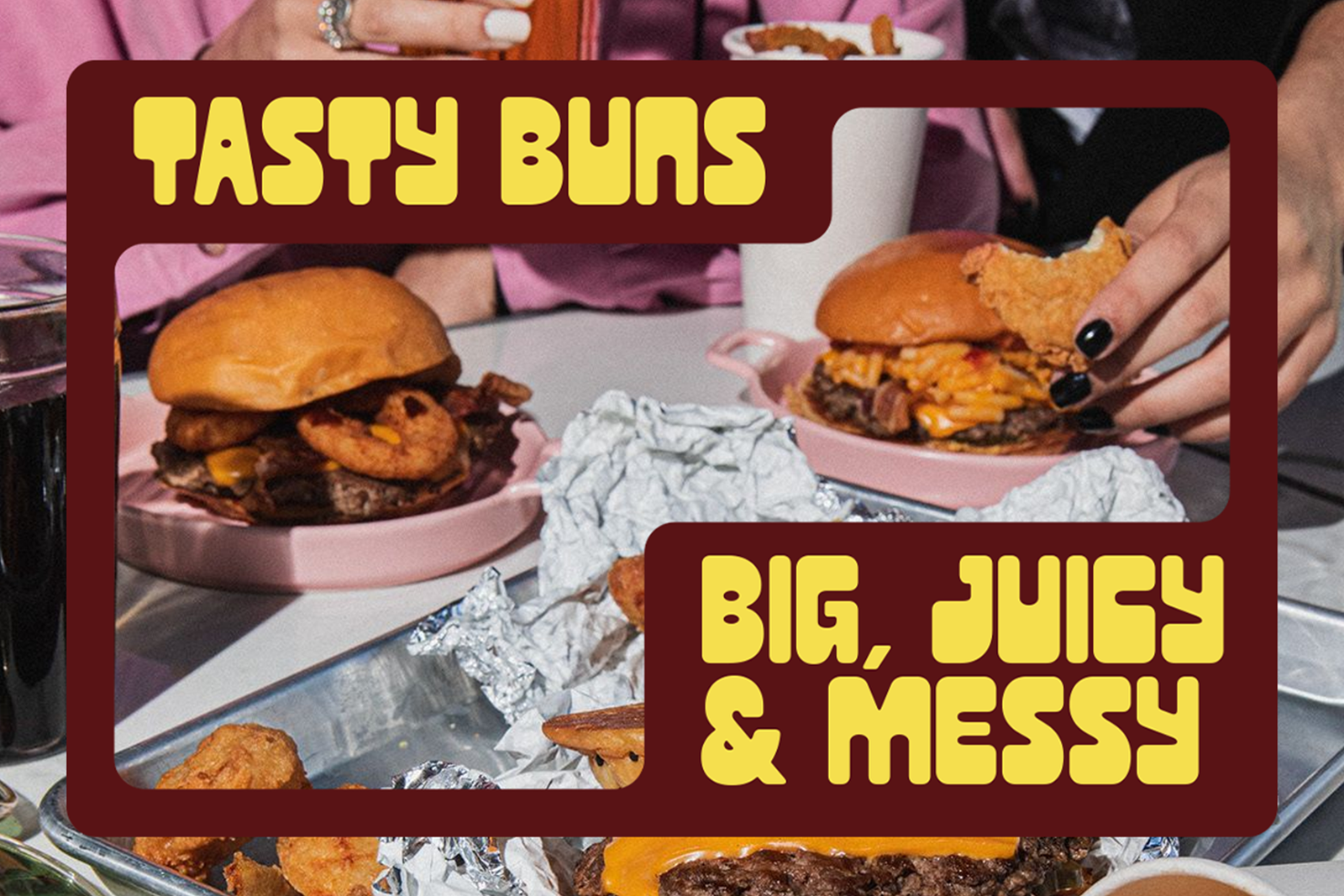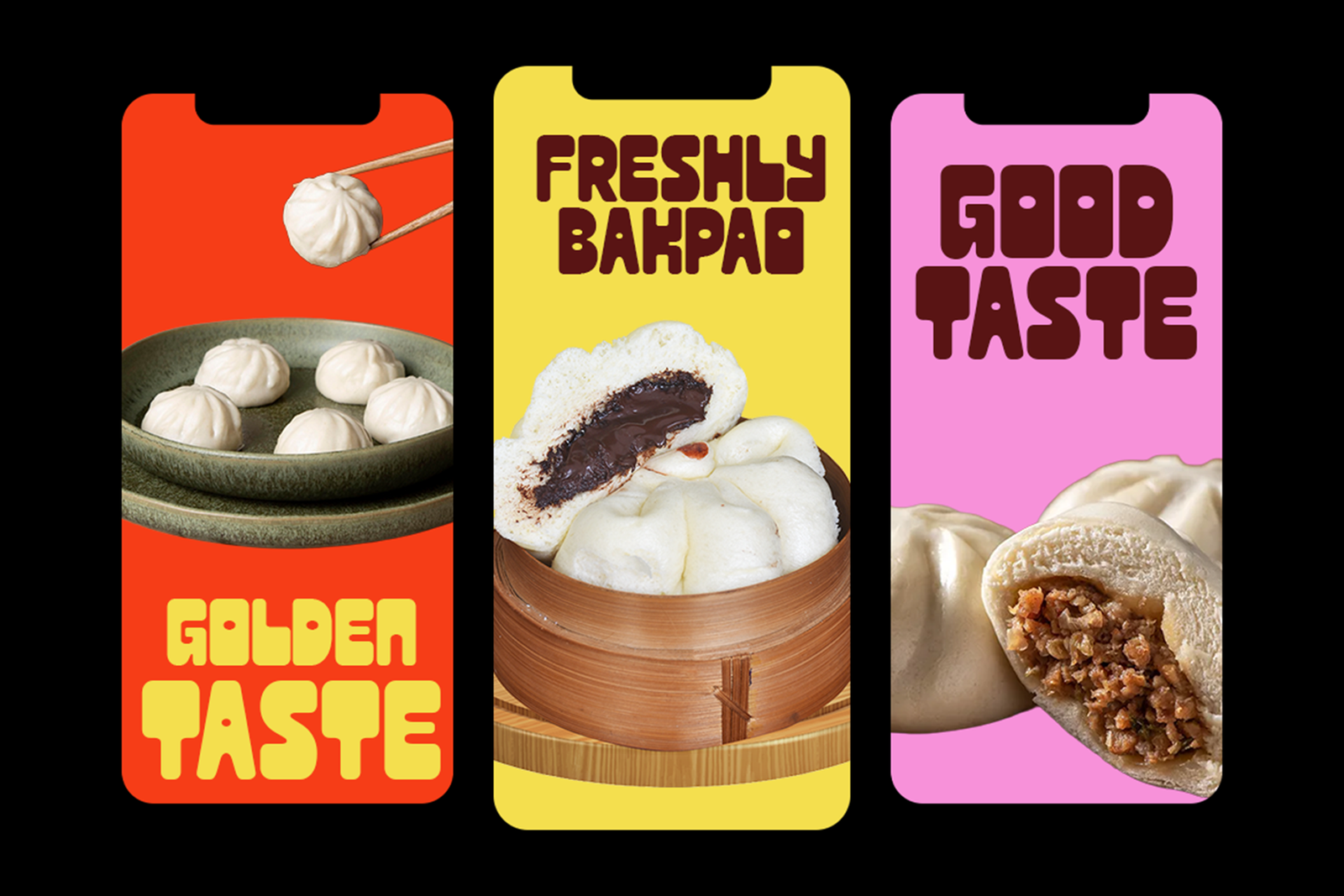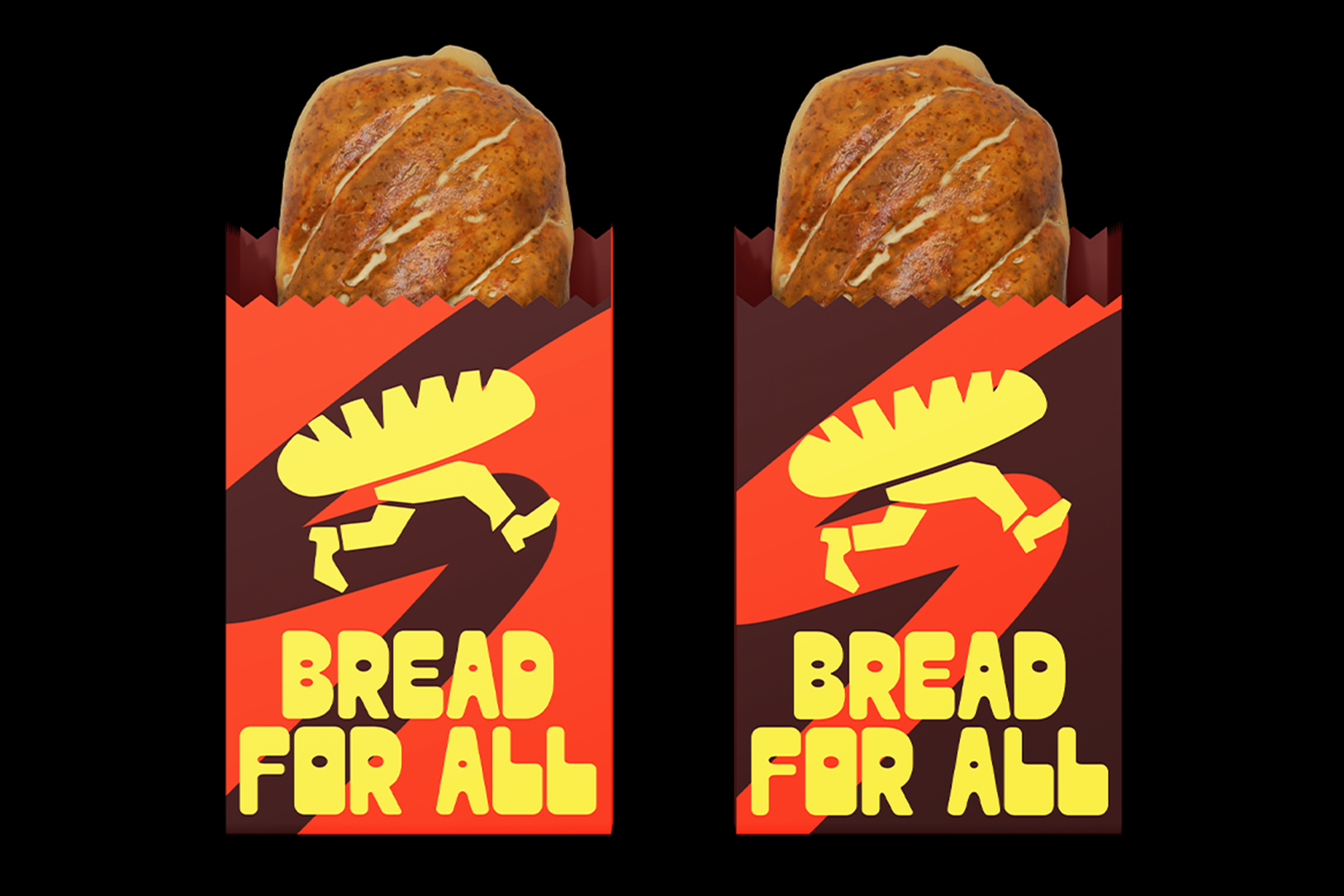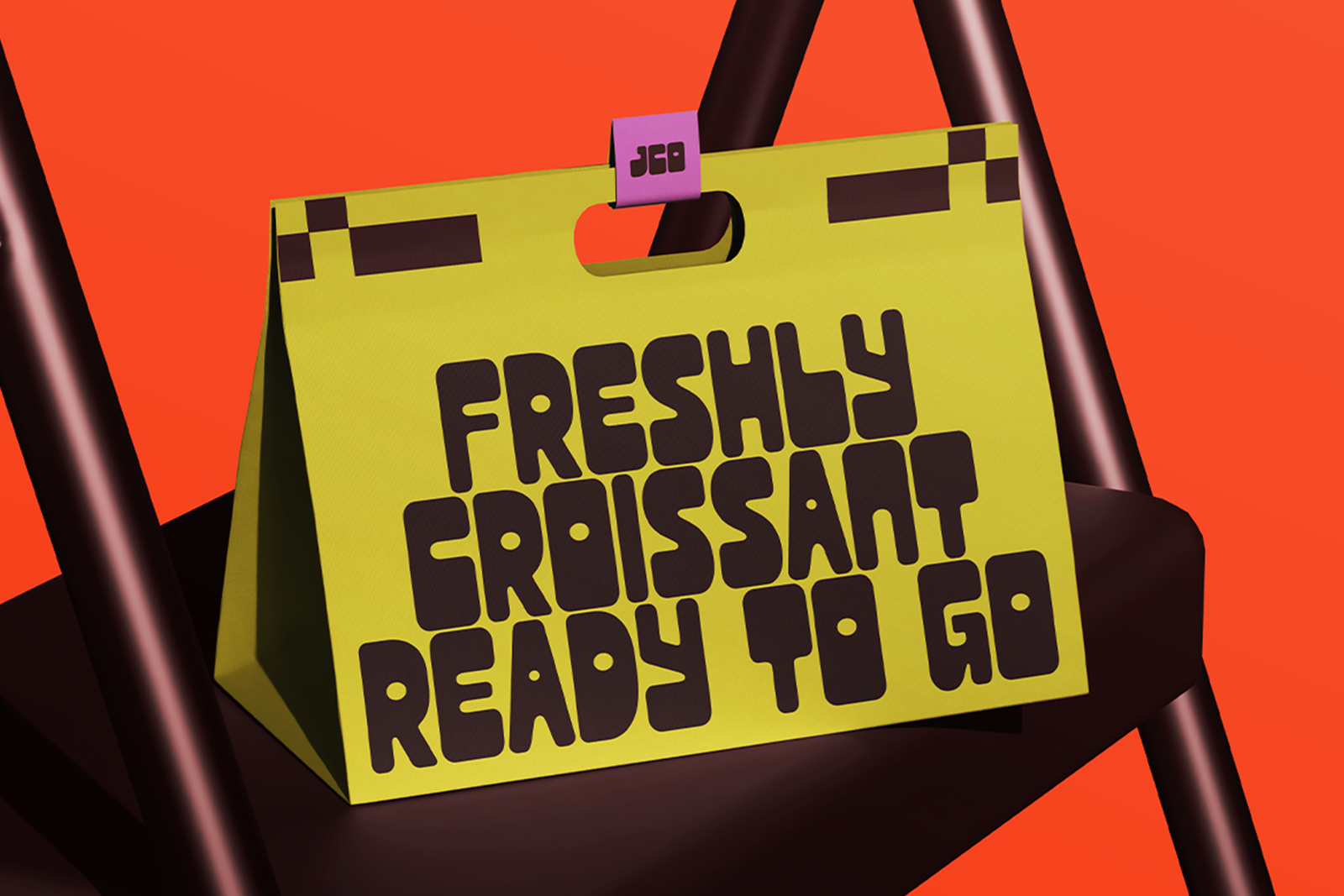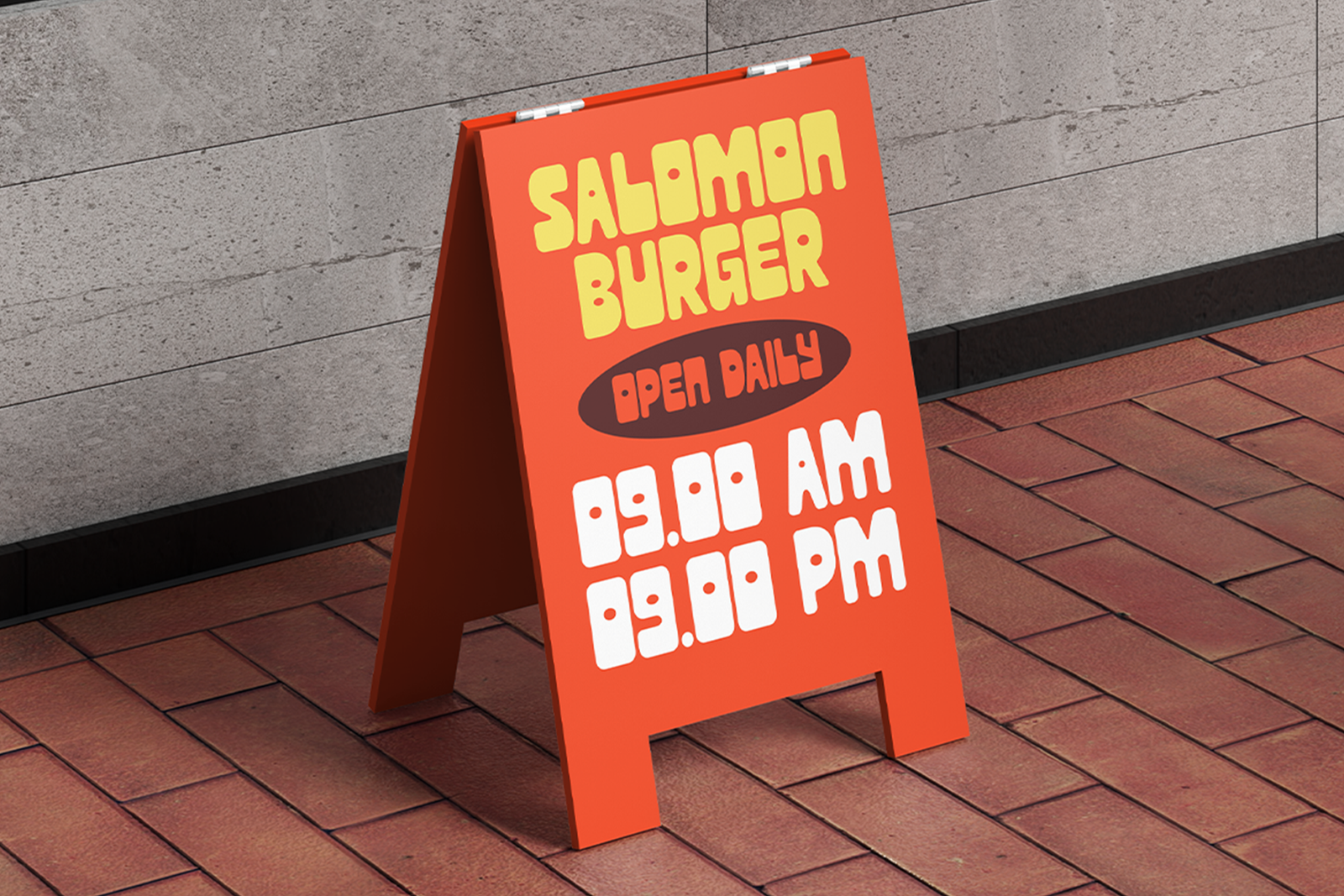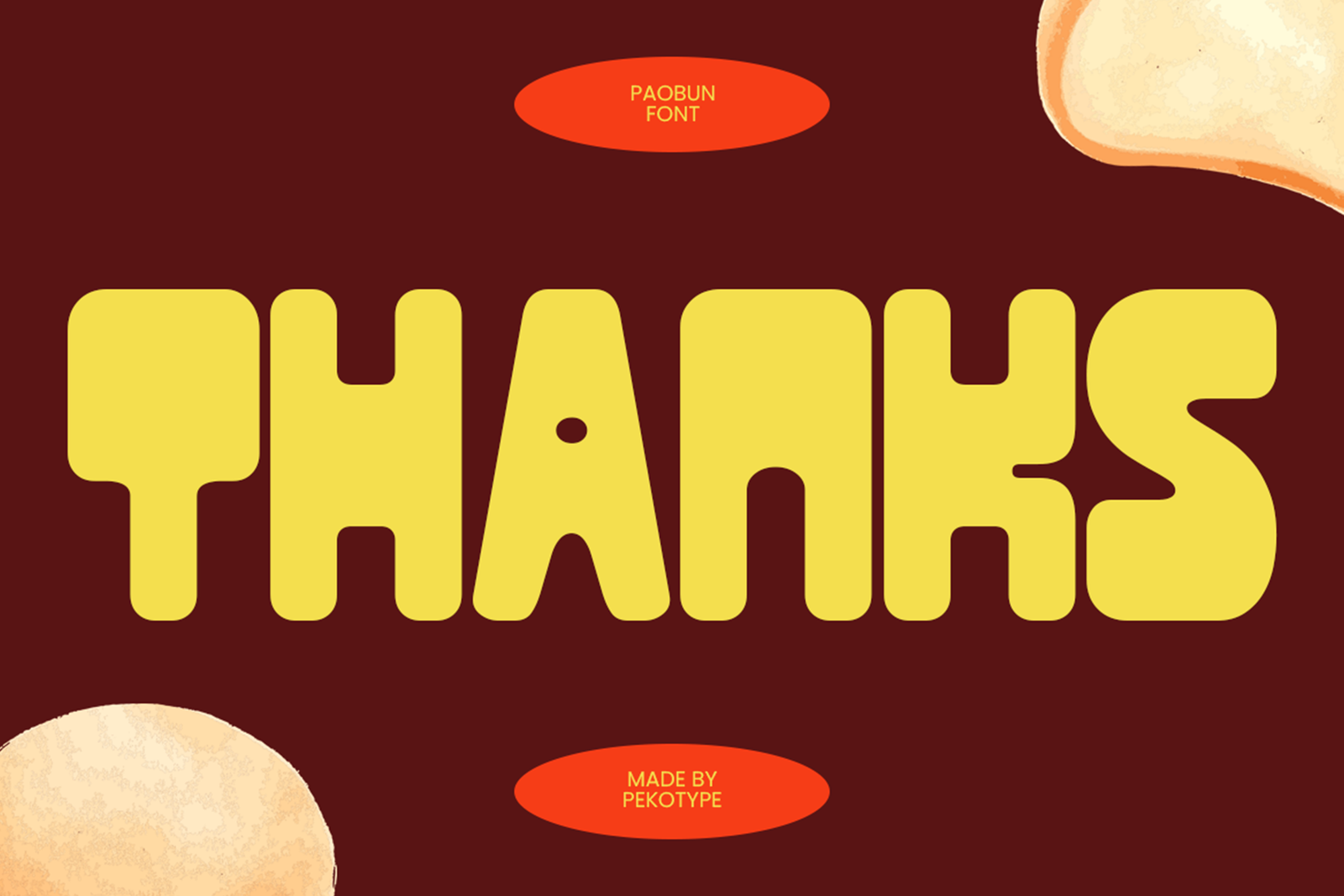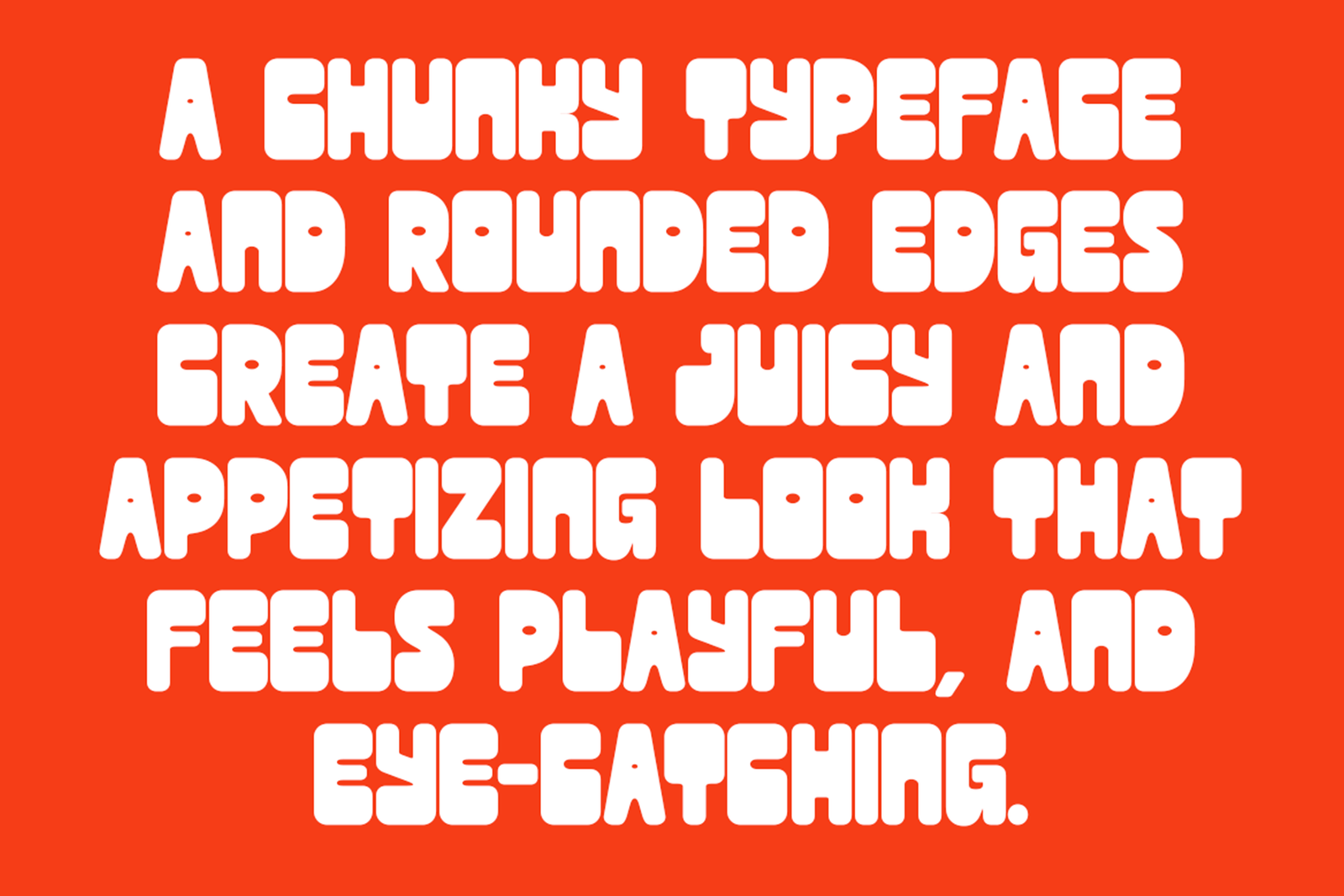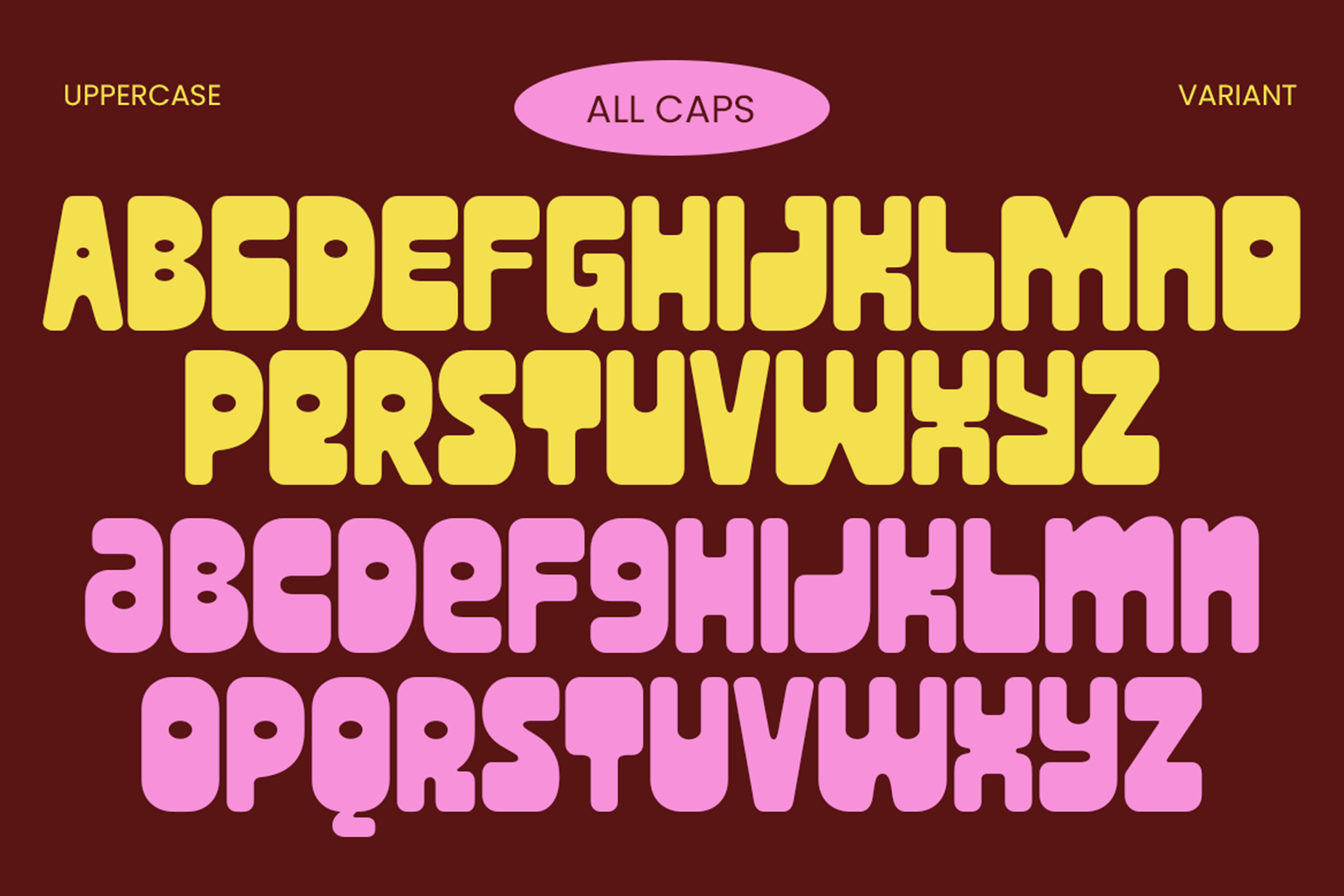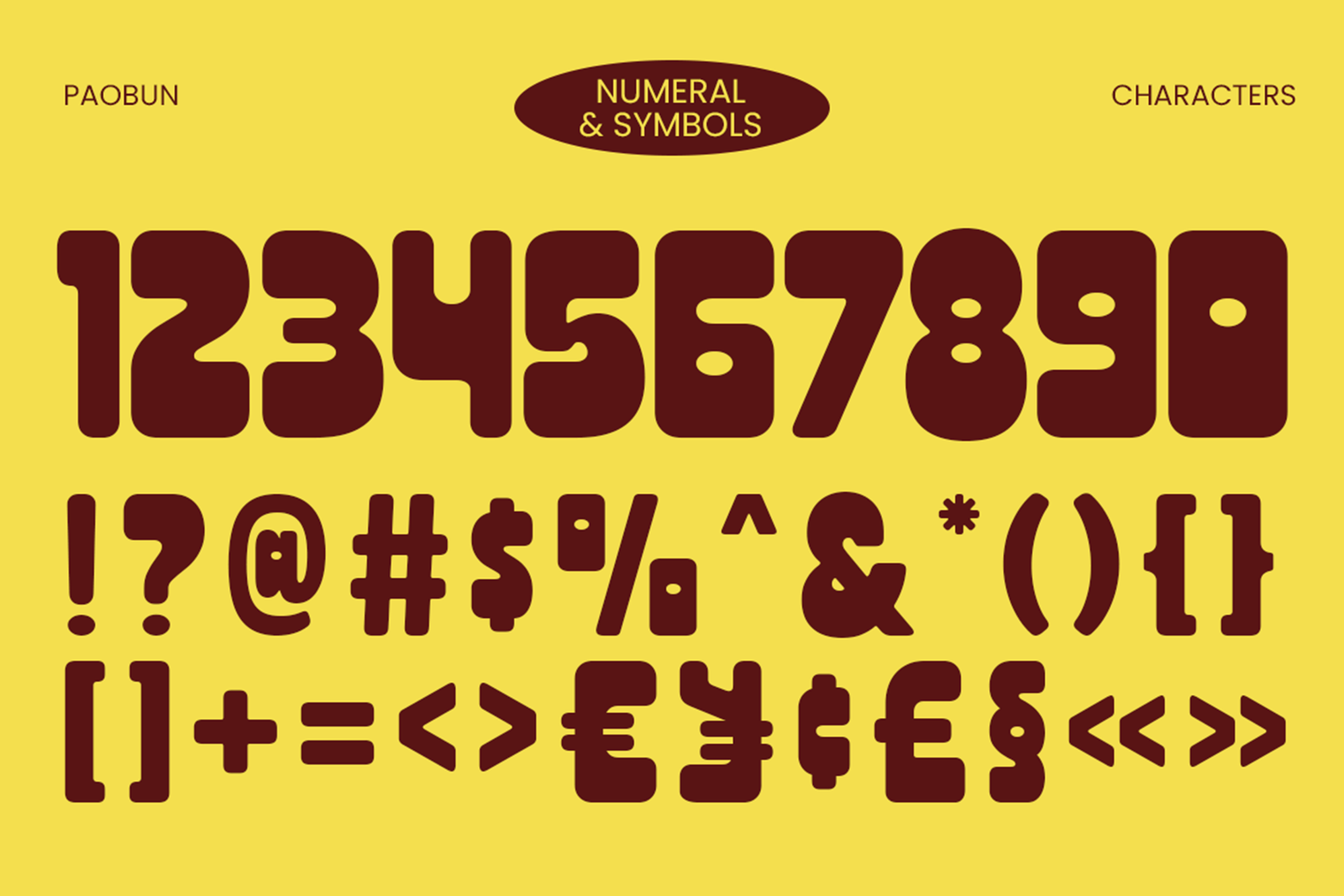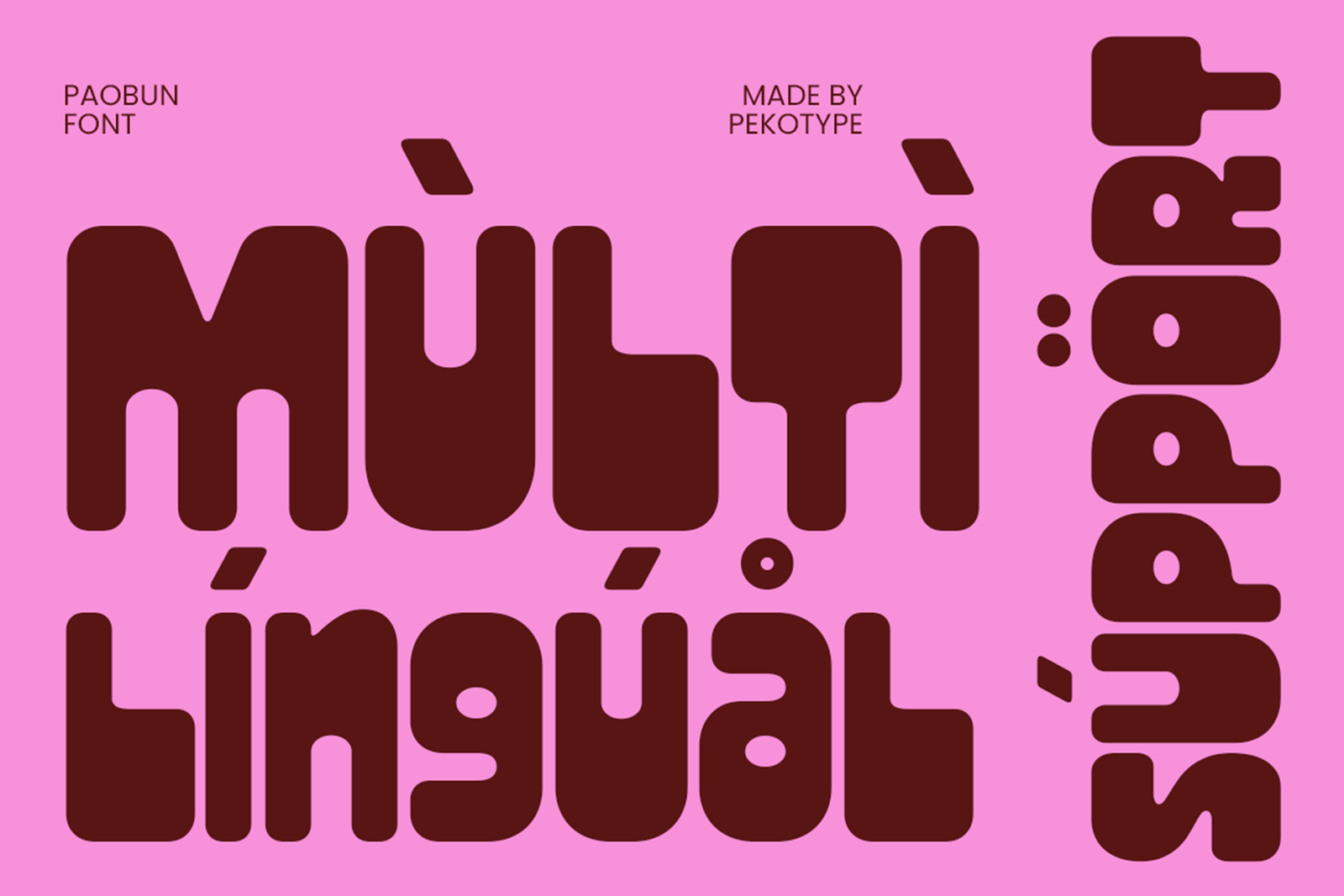
PAOBUN Font is a chunky rounded display typeface with a fun and playful personality. Perfect for food branding, packaging, restaurant menus, posters, logos, stickers, and cheerful creative projects.
PAOBUN Font is a chunky rounded display typeface designed with soft curves, bold shapes, and a playful personality. Inspired by food branding, retro packaging, and cheerful street signage, this font brings a fun and energetic feeling to every design project.
With its thick letterforms and friendly appearance, PAOBUN creates a warm and approachable visual style. The rounded shapes make headlines feel more lively, while the bold structure helps your message stand out clearly. This typeface is perfect for designs that need a cute, memorable, and eye-catching look.
PAOBUN works beautifully for restaurant branding, café menus, snack packaging, food posters, bakery promotions, burger shops, product labels, stickers, signage, social media graphics, and playful headline designs. It is also suitable for retro-inspired projects, lifestyle brands, and creative campaigns that need a cheerful personality.
The font includes uppercase and lowercase letters, numbers, symbols, punctuation, and multilingual support. Whether used for logos, packaging, promotional materials, or digital content, PAOBUN adds a unique and colorful character to your designs.
PAOBUN Font is a great choice for designers looking for a bold, fun, and expressive typeface for modern food branding and creative projects.